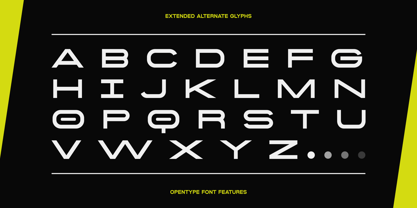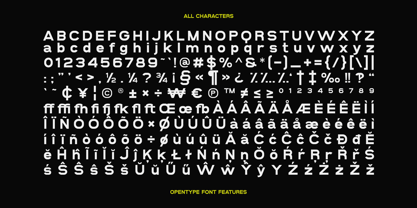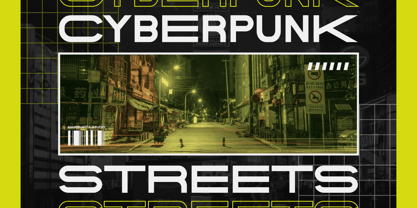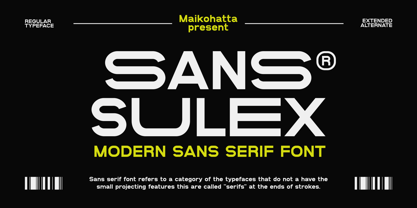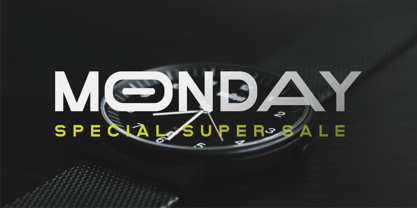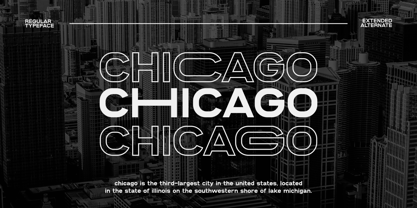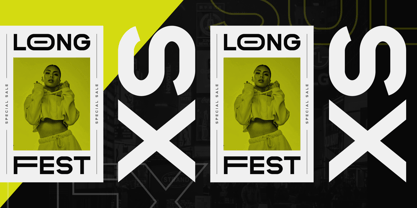
Sans Sulex
by Maikohatta
The Sans Sulex Font Family was designed by Gilang Ternadho and published by Maikohatta. Sans Sulex contains 1 styles.
Introducing our new product Sans Sulex - Modern Sans Serif Font
This Font is a very flexible choice and can be used in a variety of design contexts. Its ability to provide a clean, professional, contemporary look and its simplicity and visual appeal make this font good for use in the world of graphic design and modern typography.